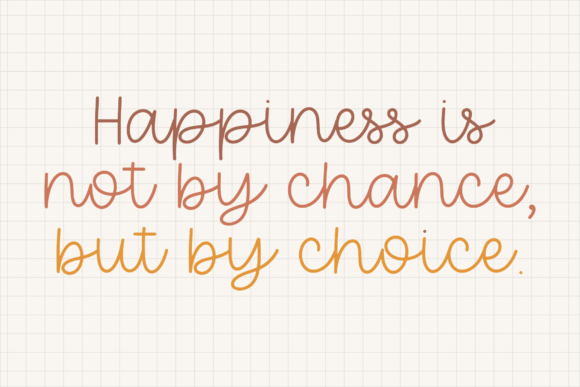
Memo Sketch Font
Memo Sketch is a sweet and cute handwritten font. Fall in love with its incredibly versatile style and use it to create gorgeous wedding invitations, beautiful stationary art, eye-catching social media posts, and much more!